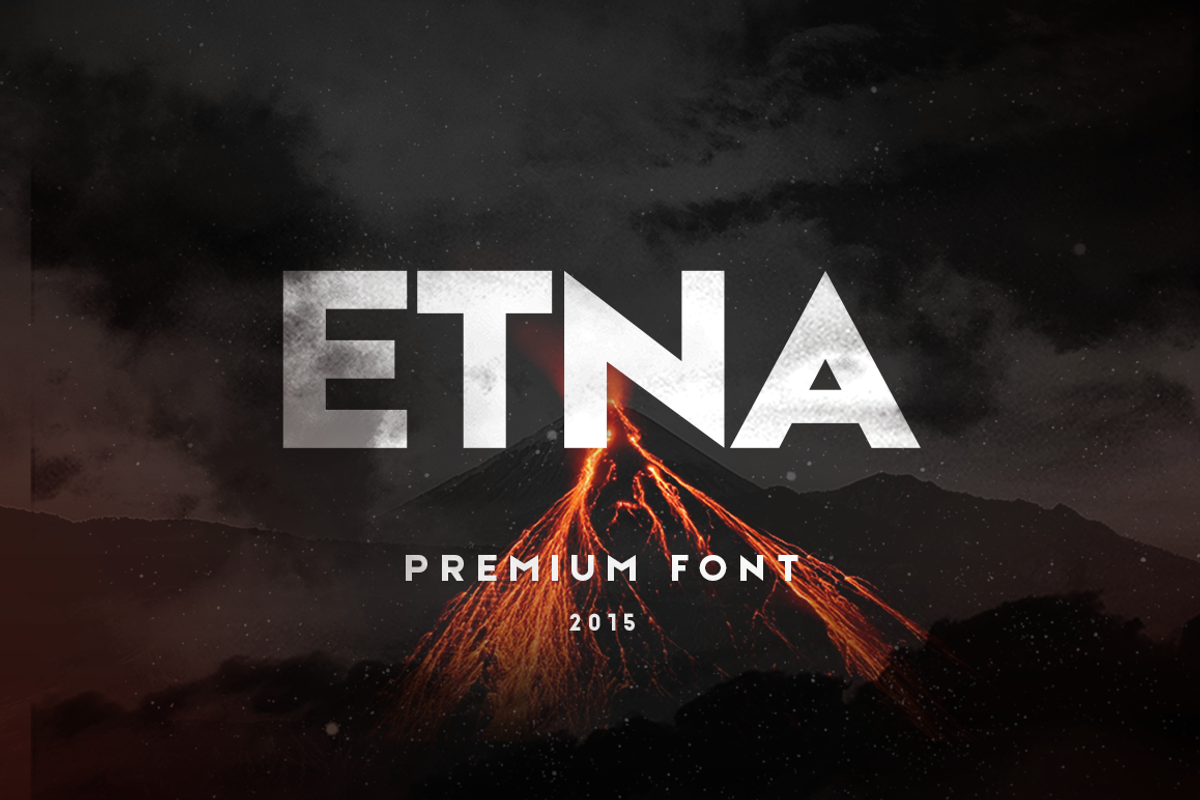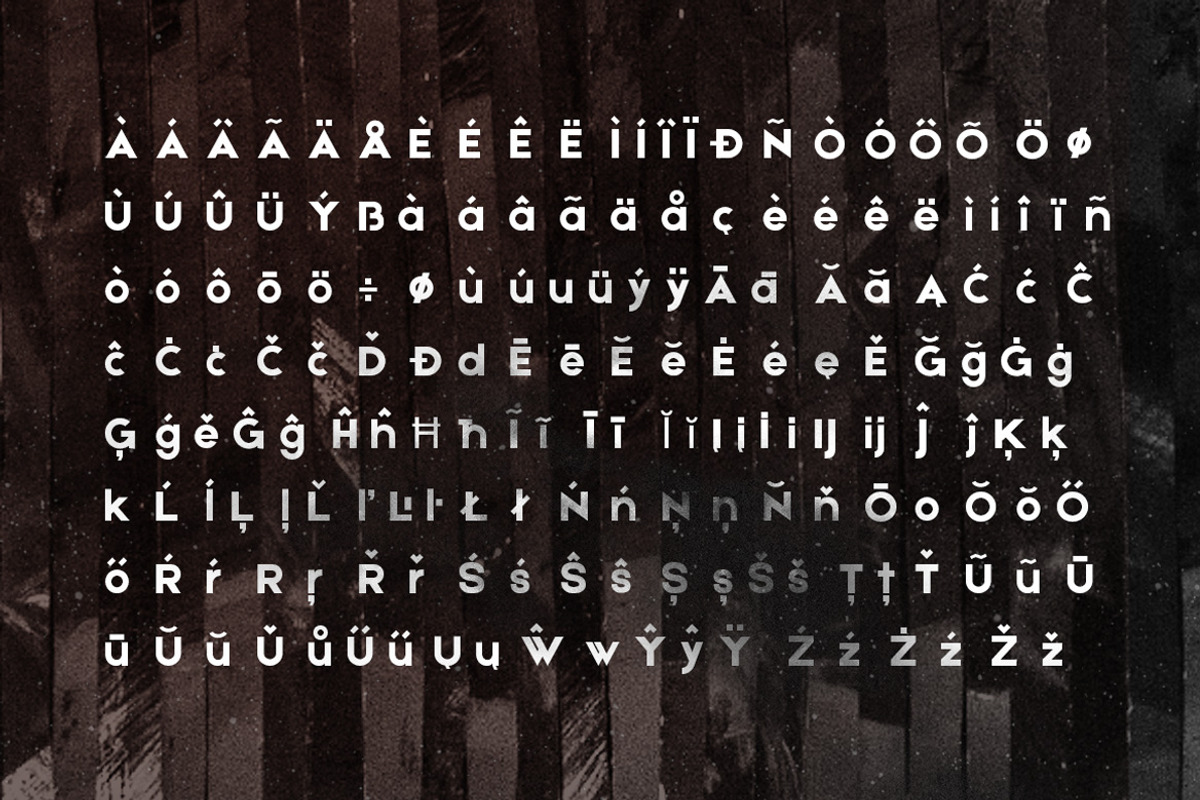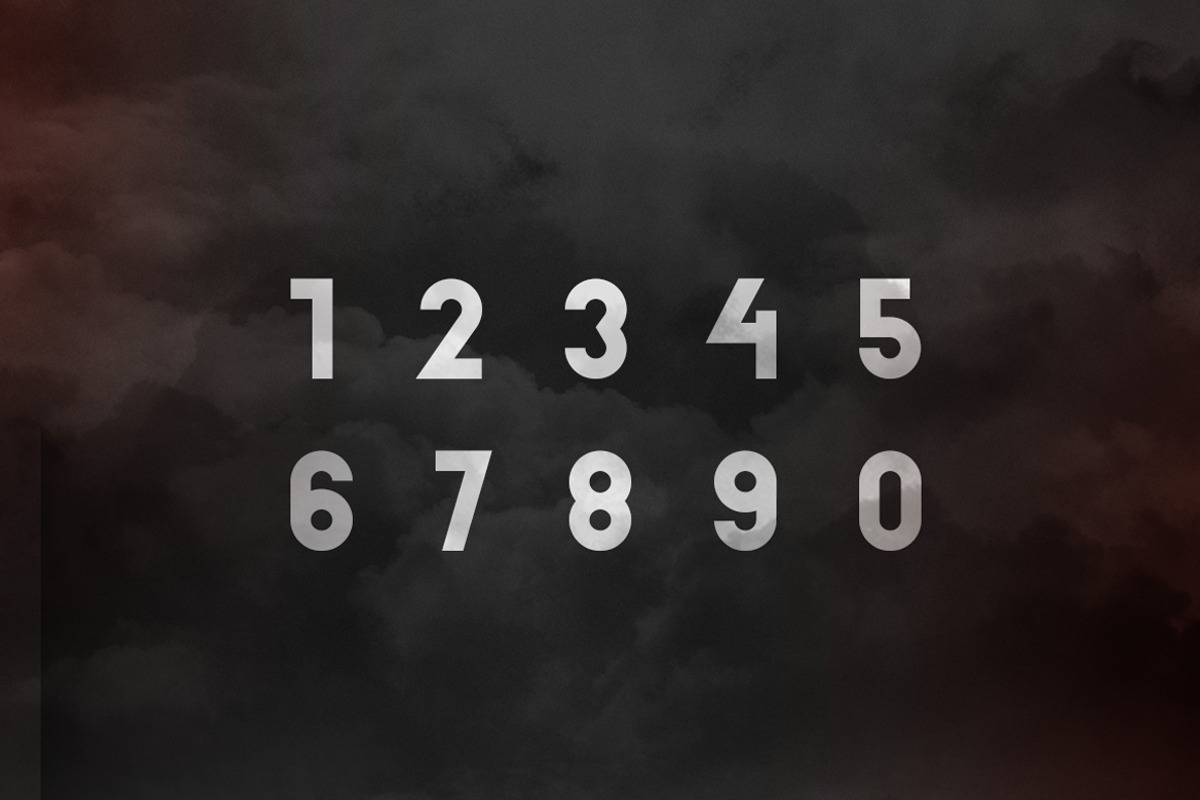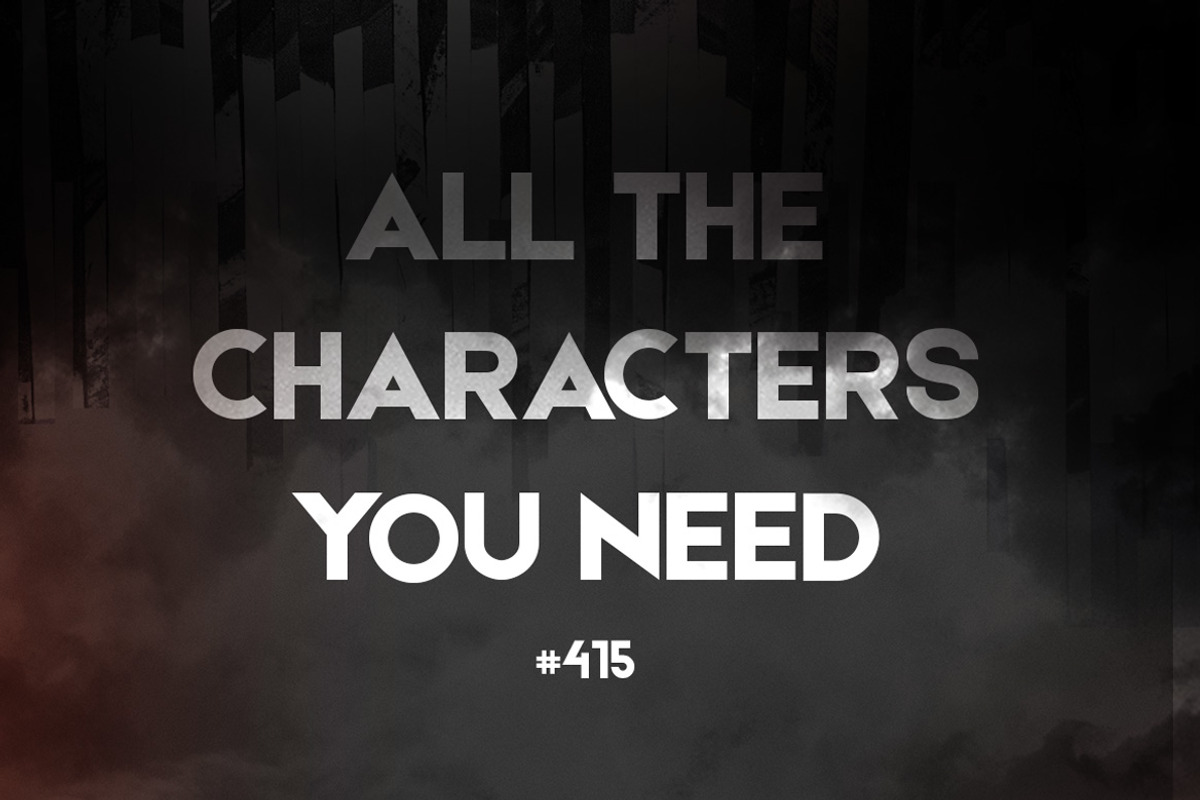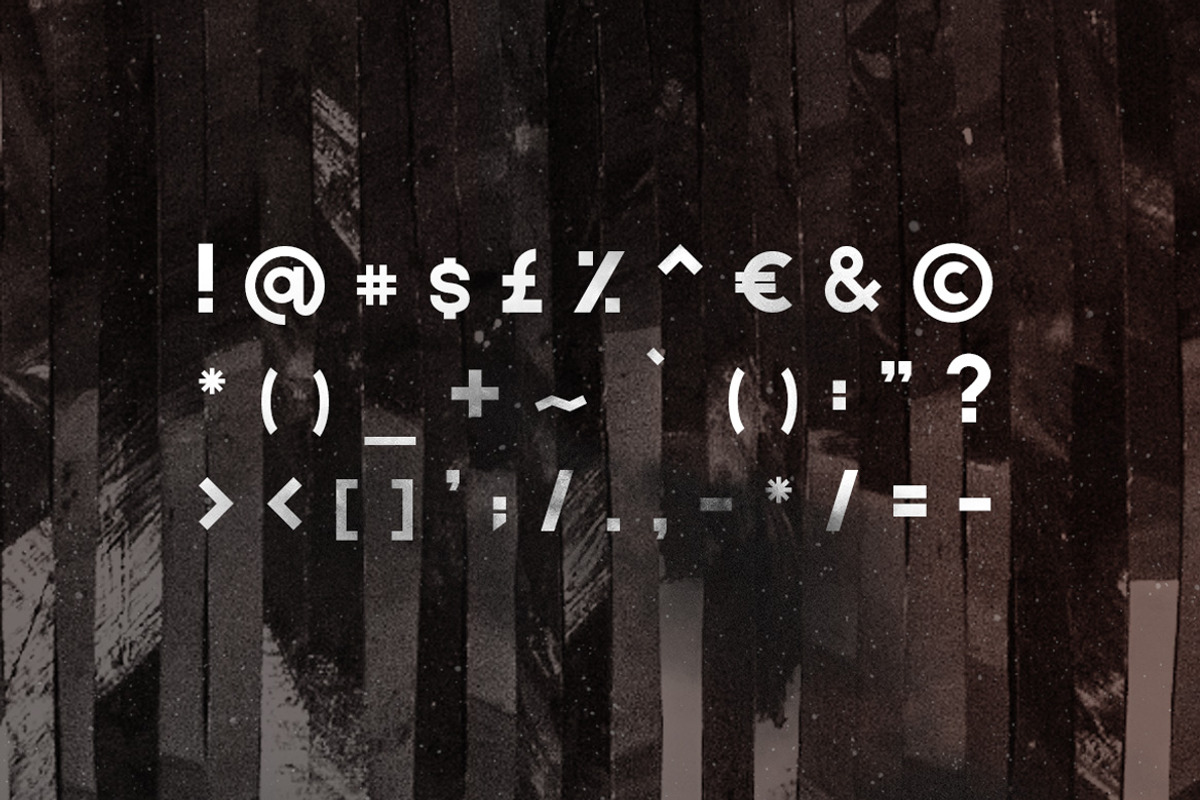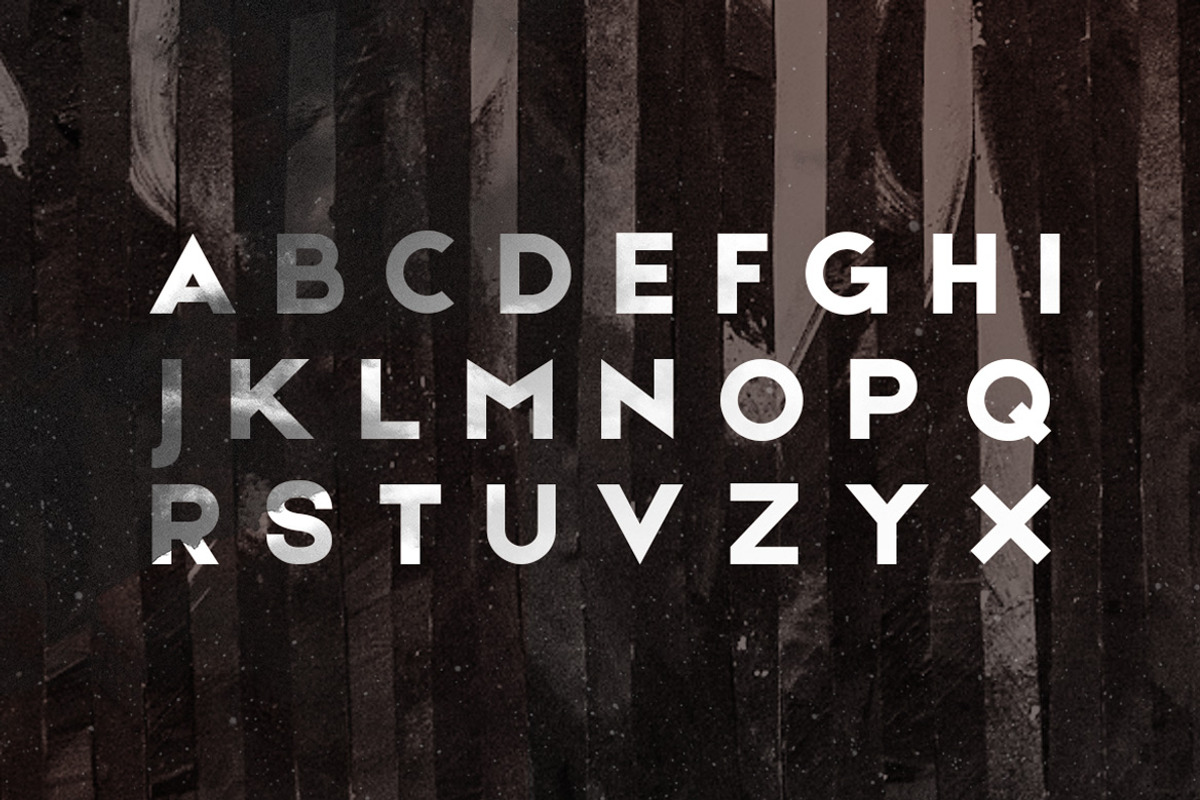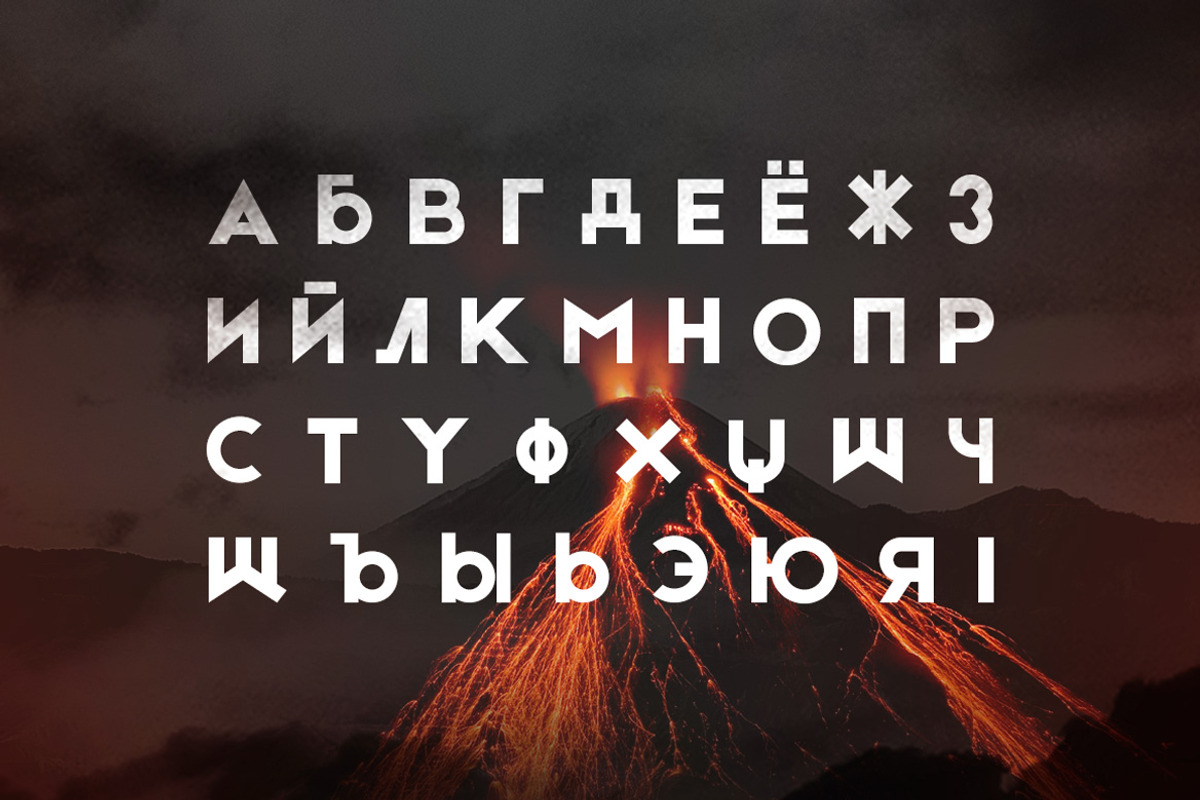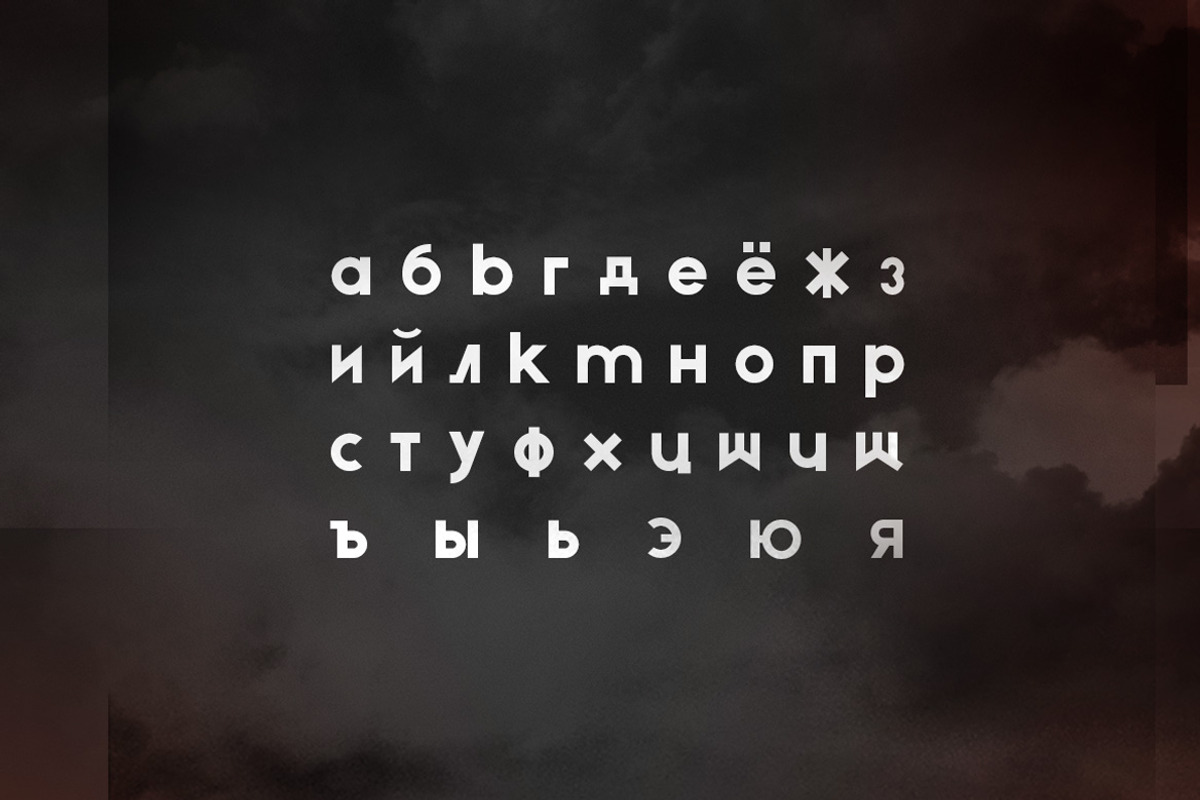
Etna Sans Serif Typeface
The ETNA comes with 415 glyphs, cyrillic and latin extended. The typeface is custom made with maximum precision and sourcing high aesthetics. The flow of the letters is seamless and easy to read with great bold accents.